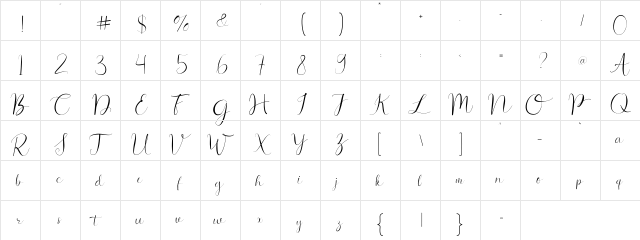
Lovia Regular Font Preview
Lovia Regular
Design Context for Lovia Typeface
Lovia is a composed and adaptable typeface that performs quietly and consistently across a wide range of design contexts.